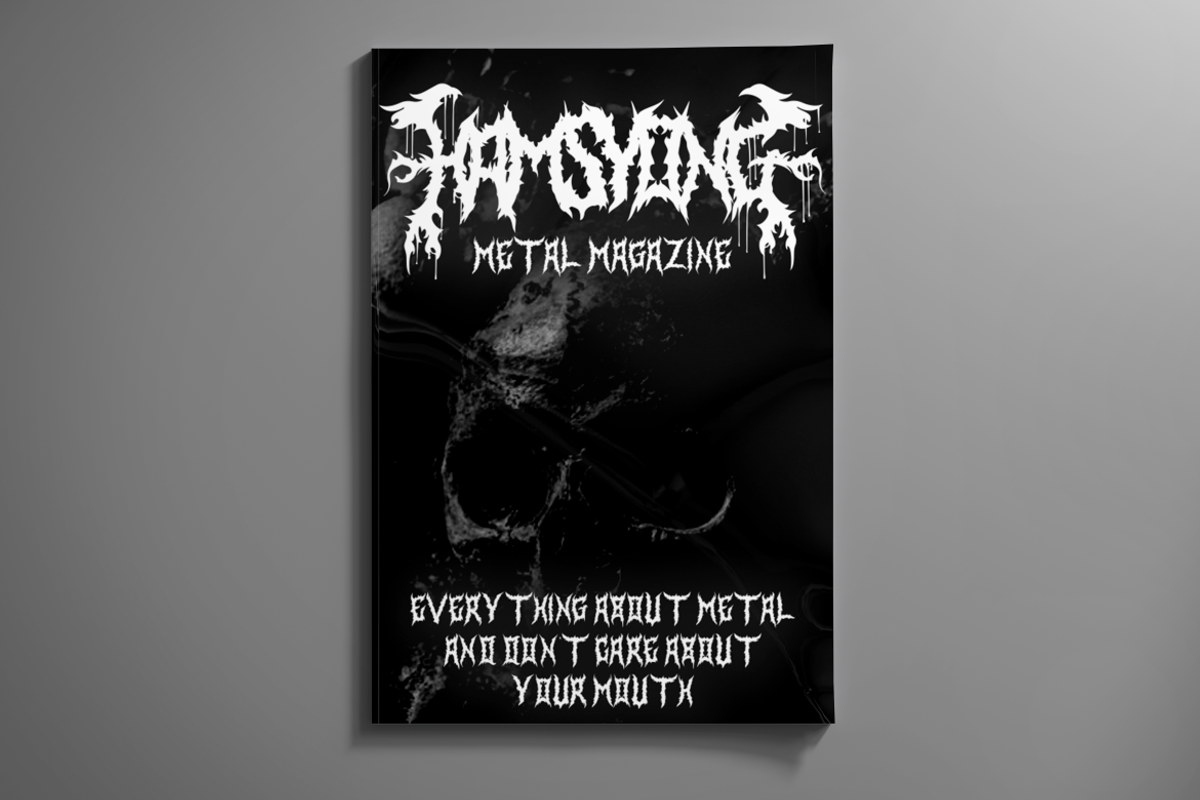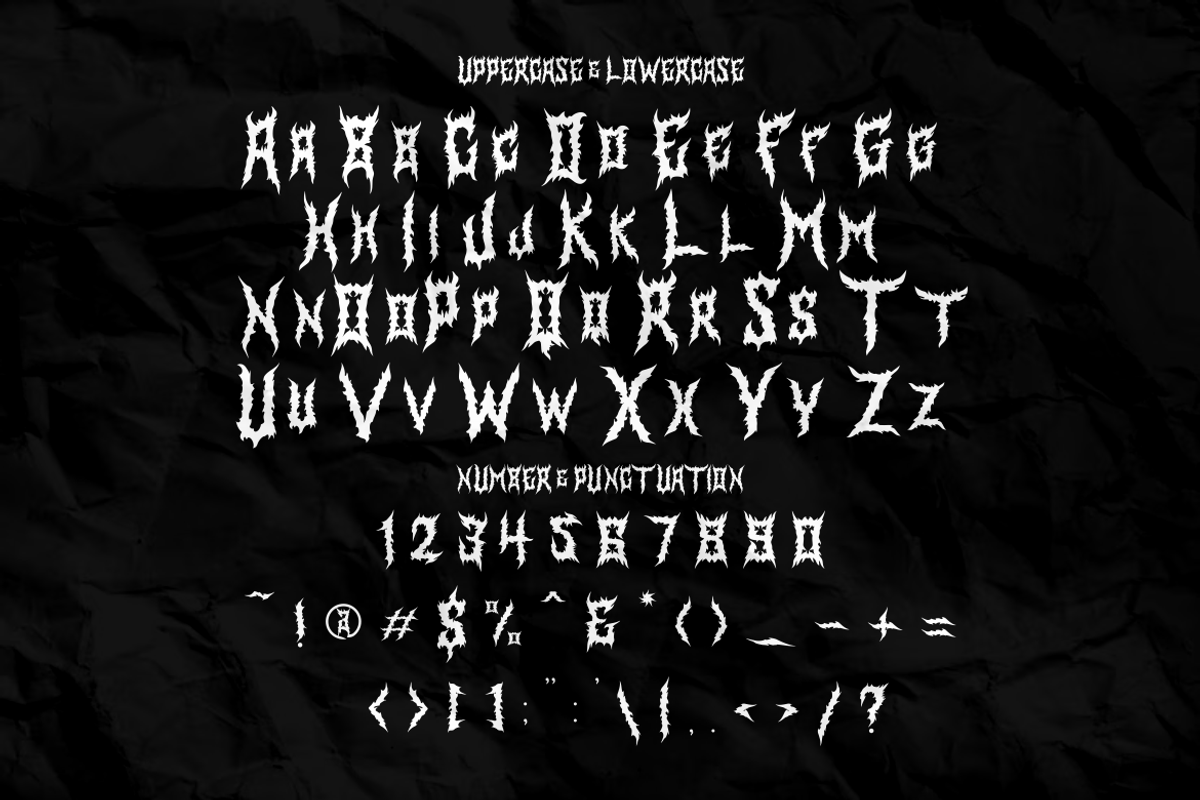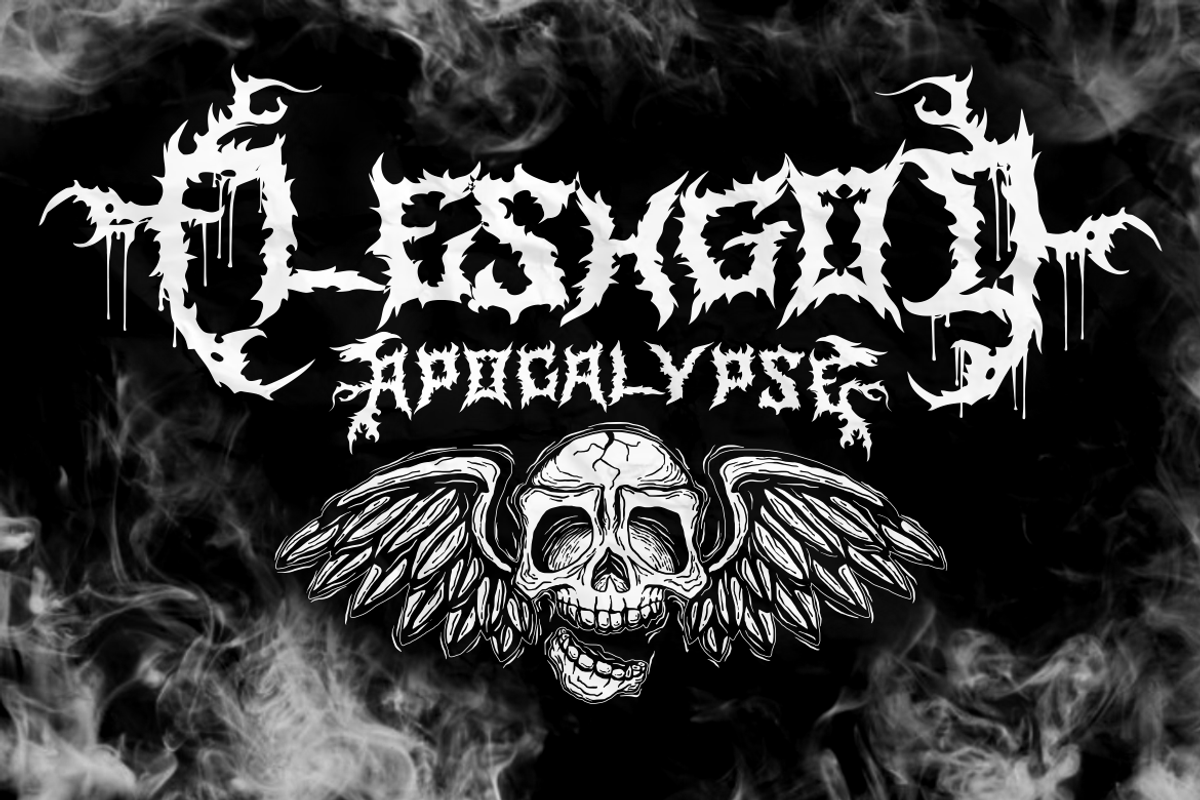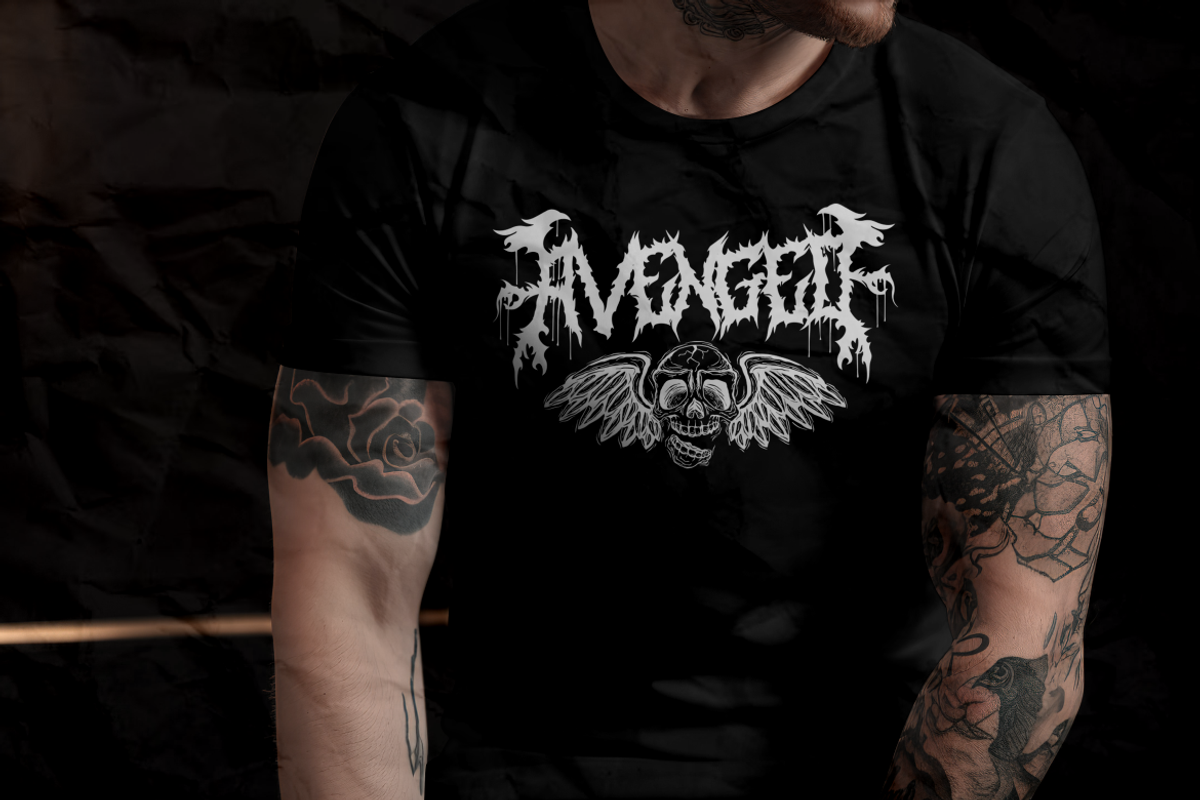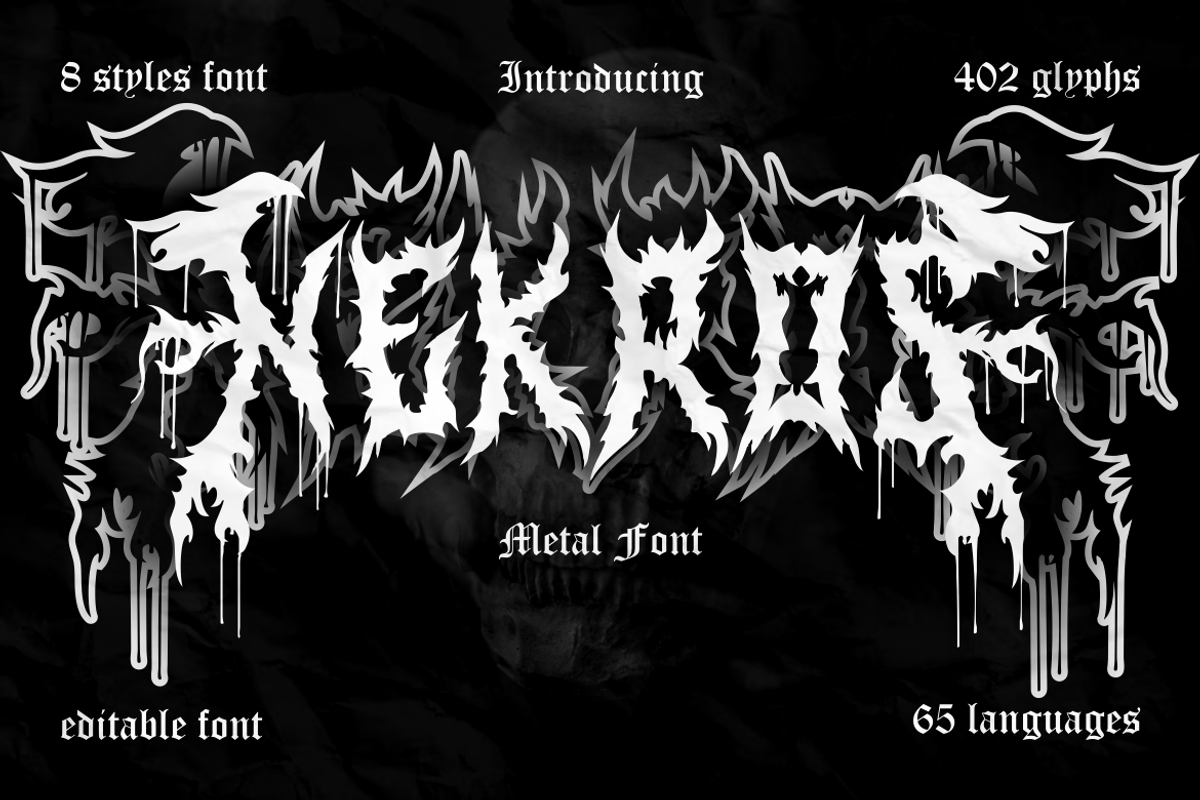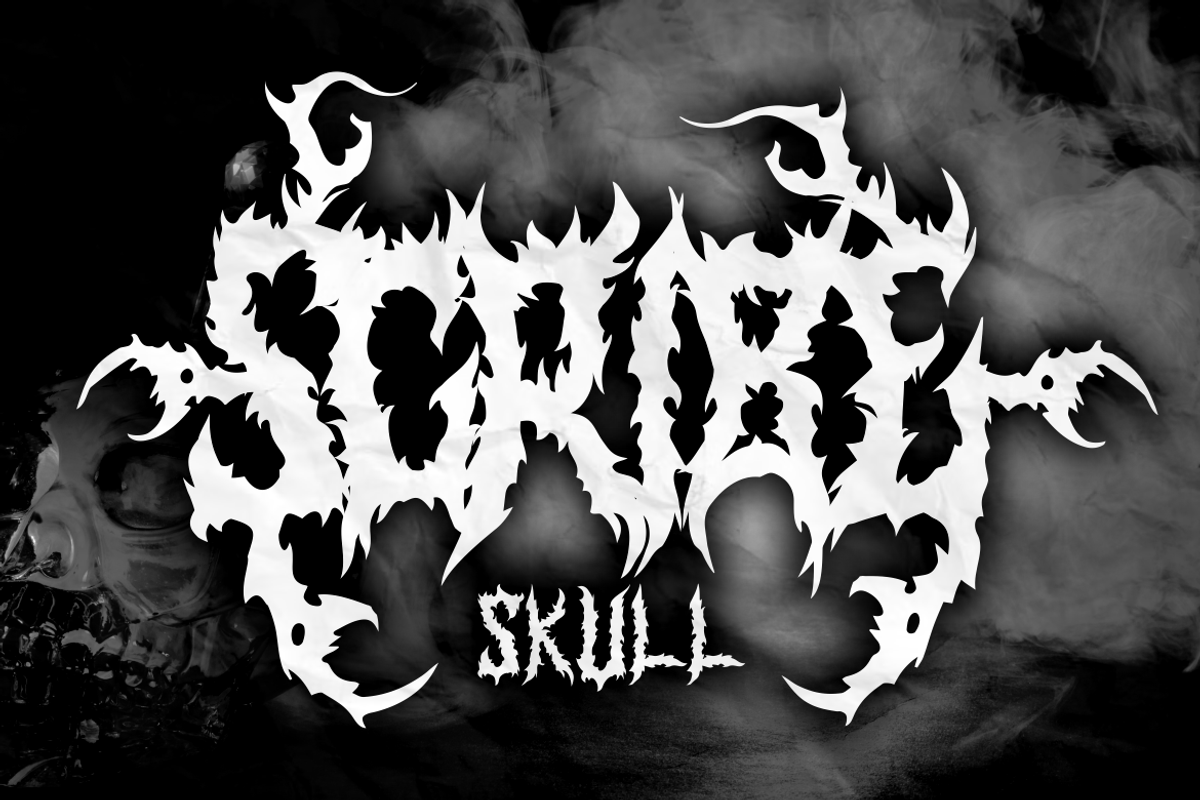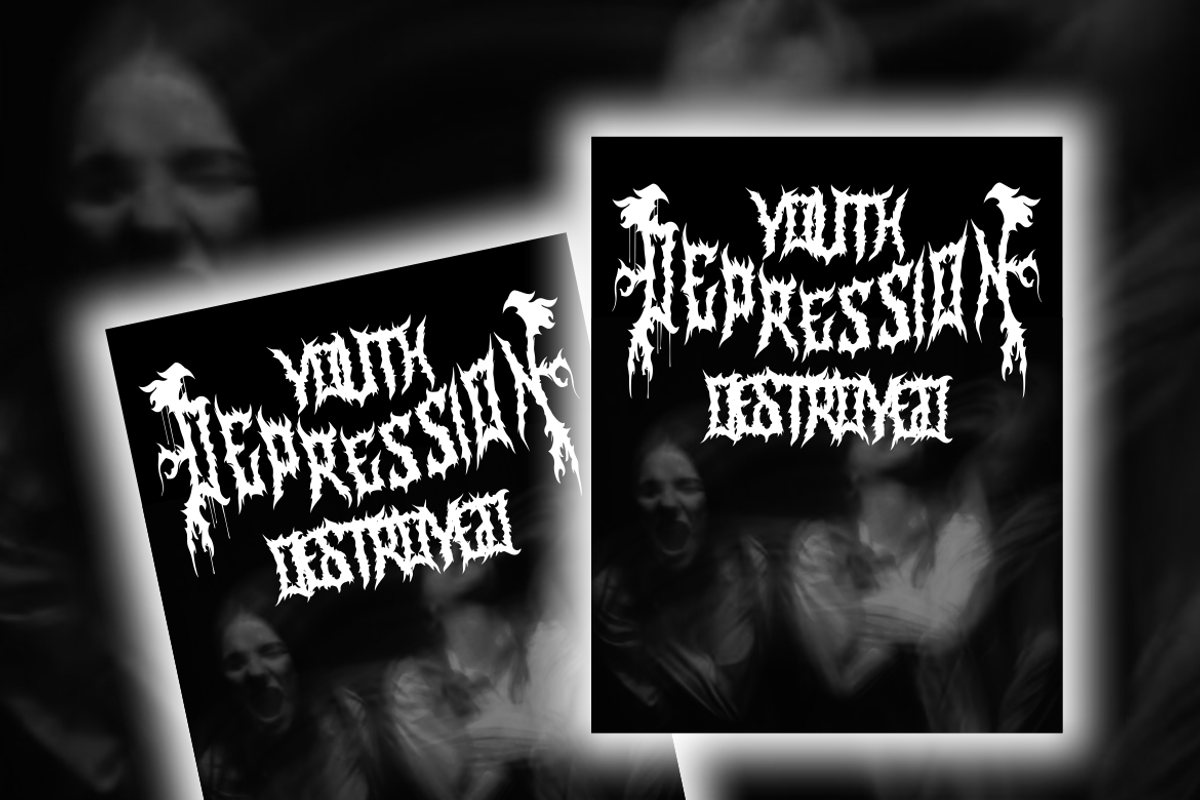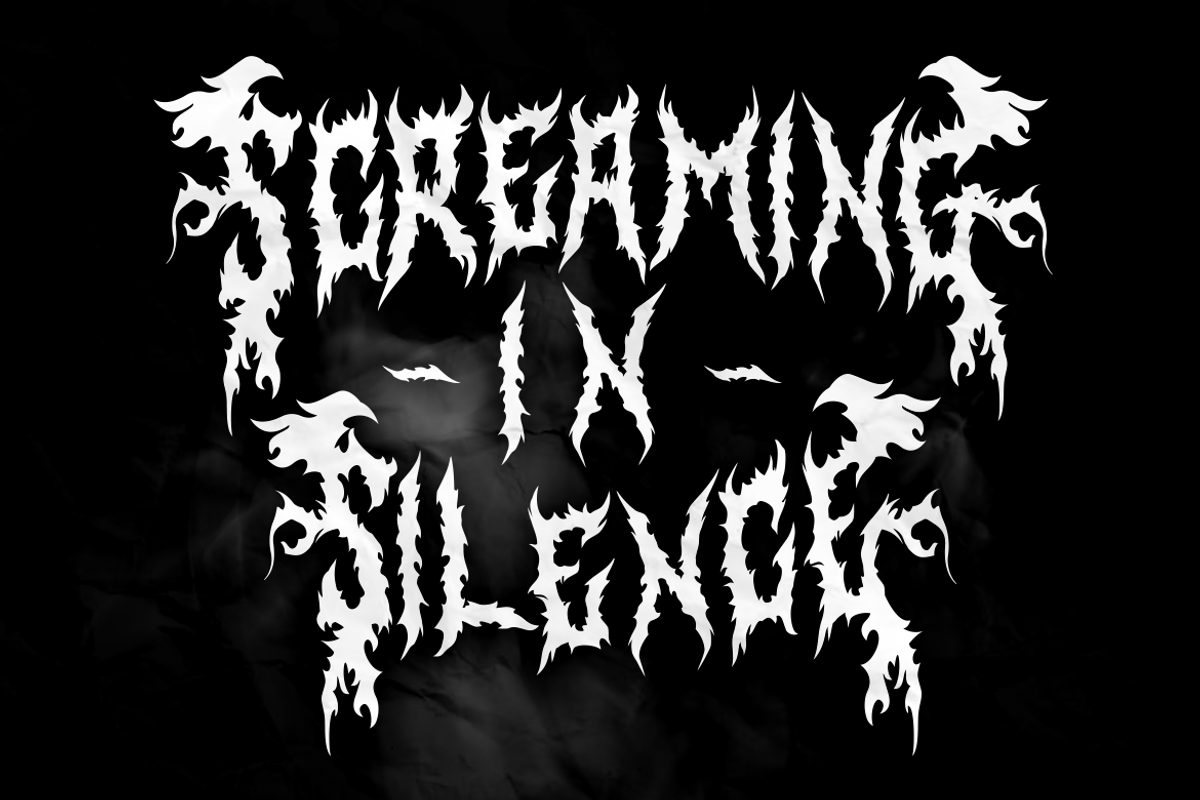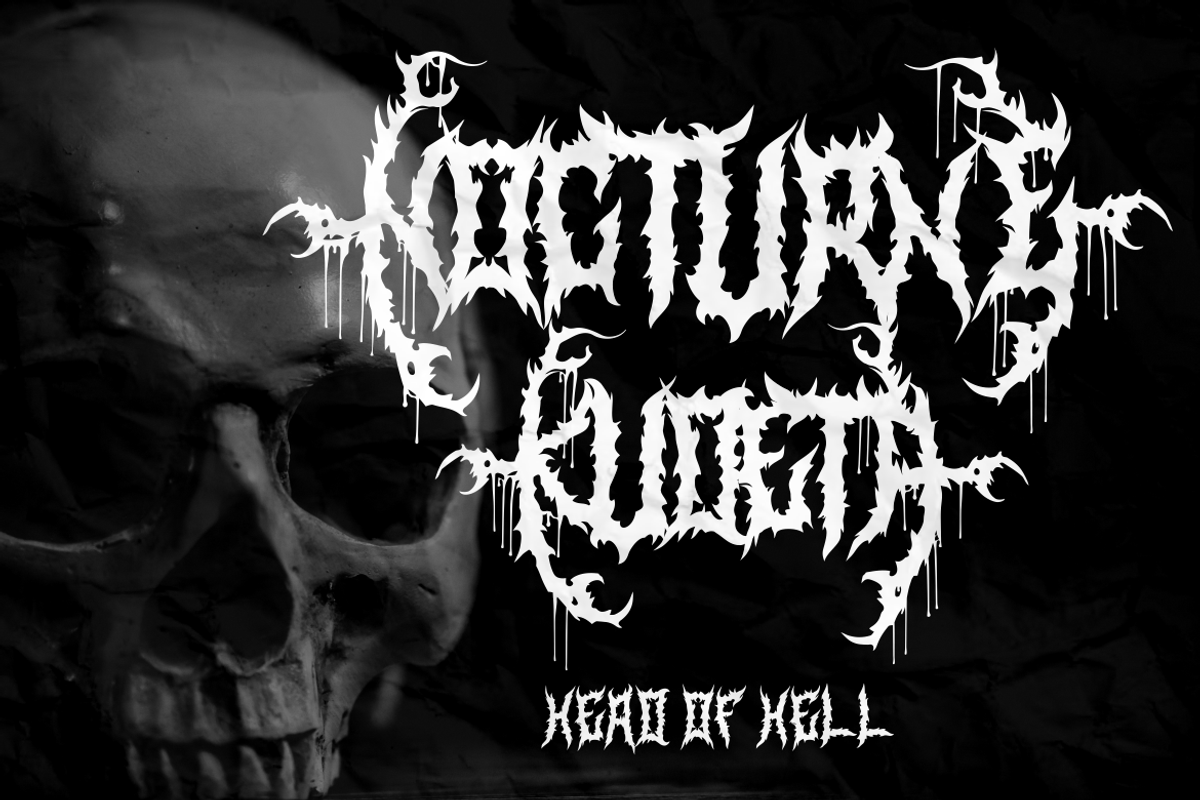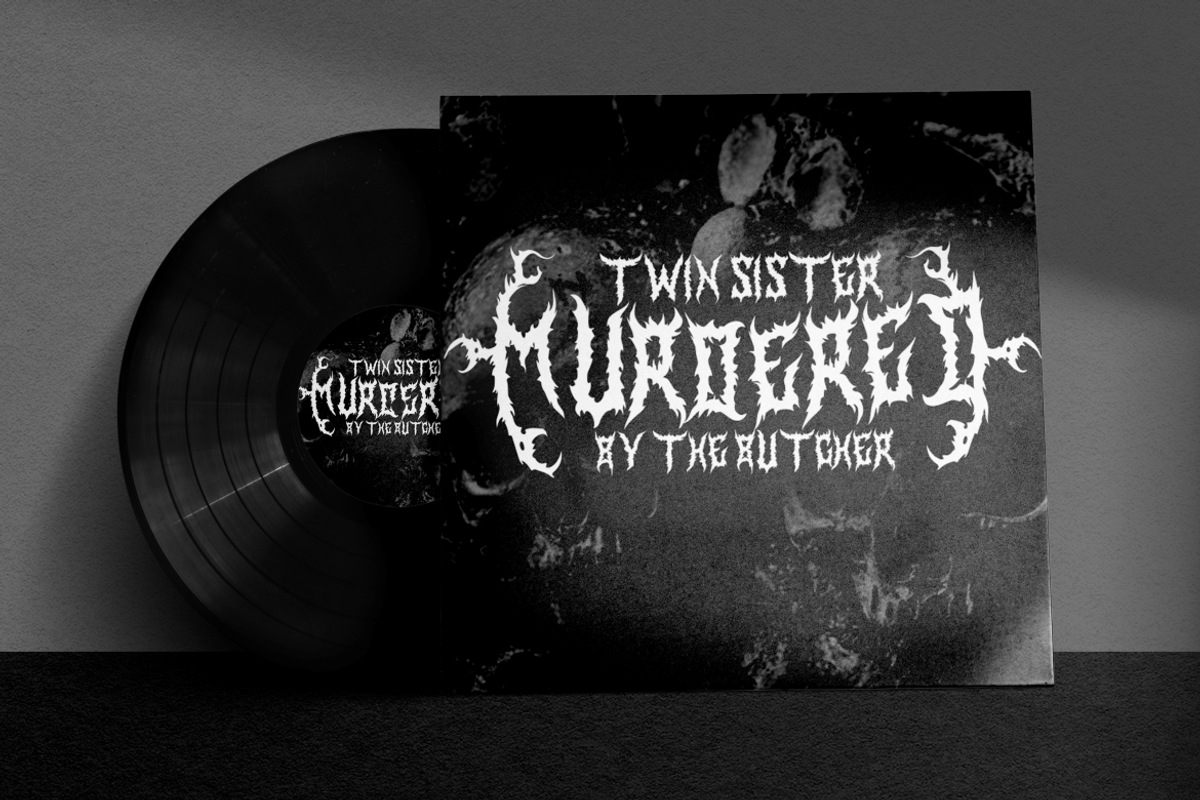
Nekros - Metal Font
Nekros - Metal Font is a unique typeface that embodies the essence of metal, black metal, heavy metal, and rock culture. With its grunge aesthetics and black letter style, Nekros is not just a font but an experience that transports you to a world where music and typeface merge into one. Every character is meticulously crafted to exude energy, rebellion, and power synonymous with bands and artists of these iconic music genres.
Nekros is versatile; it’s not just a font but a tool that amplifies the visual identity of logos, branding materials, posters, and titles. Imagine the name of a heavy metal band adorned with the intricate characters of Nekros or an event poster screaming for attention – this font is designed for impact. With 402 glyphs supported in 65 languages and eight styles to choose from, customization knows no bounds. Each glyph resonates with the raw energy of live performances echoing the screams of devoted fans.